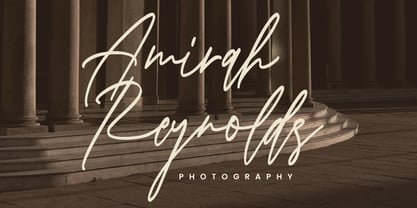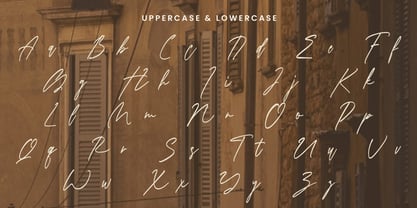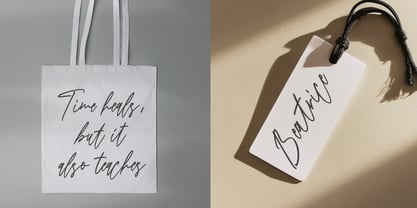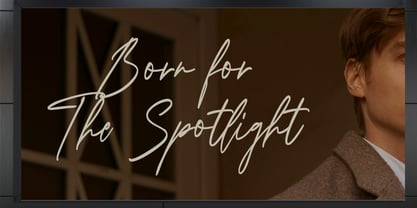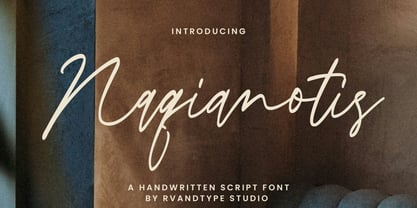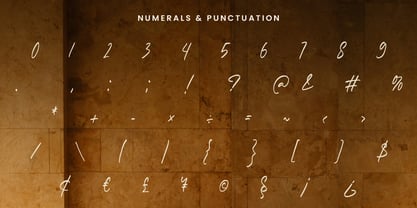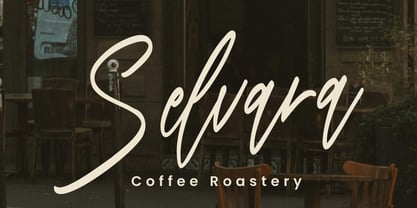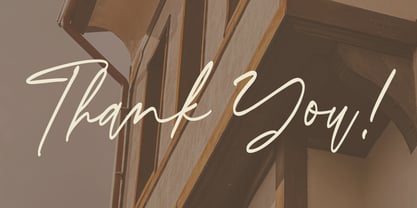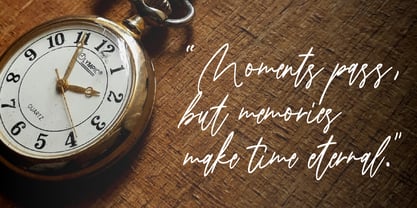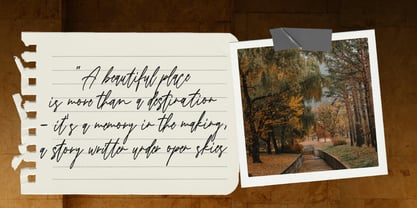
Naqianotis
The Naqianotis Font Family was designed by Randi Irvan and published by Rvandtype. Naqianotis contains 1 styles. More about this family
Naqianotis is an elegant handwritten script font that captures the beauty of natural handwriting with smooth, flowing strokes. Its delicate yet confident character design brings a sense of sophistication and warmth, making it versatile for both personal and professional projects.
Perfectly suited for:
• Fashion & luxury branding
• Logos and signatures
• Wedding invitations & stationery
• Posters, quotes, and editorial designs
• Photography and personal branding
With its stylish and graceful appearance, Naqianotis delivers a timeless charm that blends modern elegance with a personal touch.
Key Features
• Uppercase & lowercase letters with natural flow
• Multilingual support
• Alternates & ligatures for authentic handwriting feel